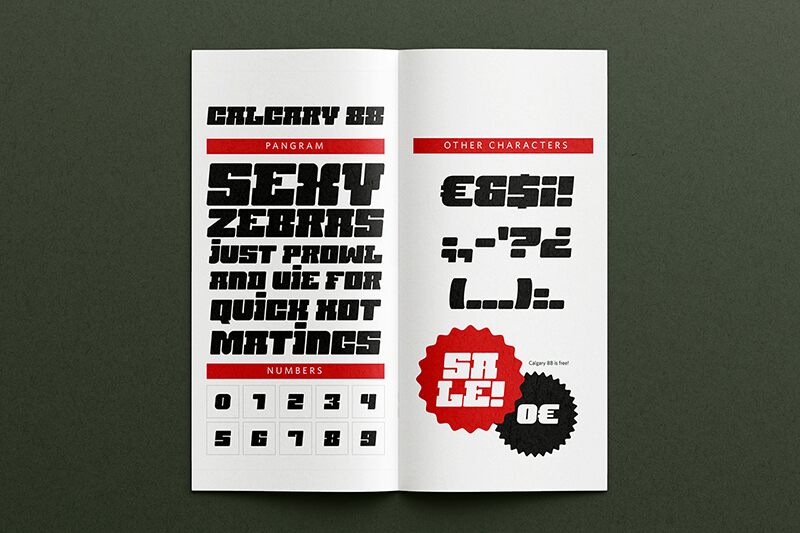
Calgary 88, designed by Nomaszebras, is a bold display font that commands attention. Its expanded characters exude confidence and stability, making it an ideal choice for creating a strong visual impact. The font's generous proportions and assertive presence lend it a contemporary vibe that's well-suited for dynamic branding, eye-catching headlines, and impactful titles.
Whether applied to the sleek contours of modern architecture or the tactile surfaces of packaging design, Calgary 88 delivers clarity with style. Its robust form makes it perfect for logos that need to stand out in any context and magazine layouts that require a touch of sophistication without compromising readability. This font is not just about making words seen; it is about making them felt in every curve and stroke.
Calgary 88
Nomaszebras